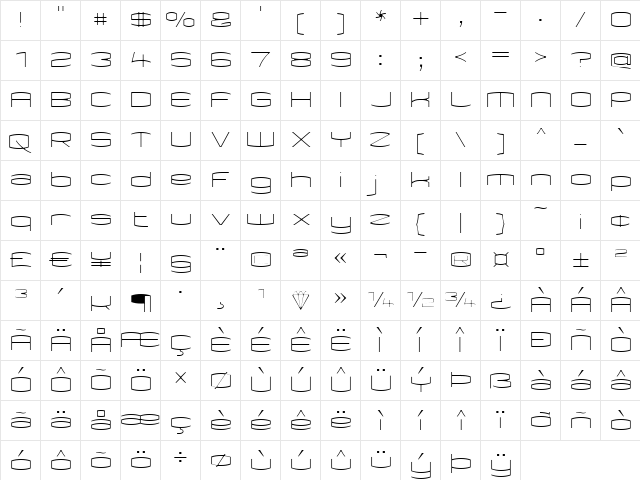
Kameleon Thin Regular
| Designer | Graham Meade |
Design Context for Kameleon Thin Typeface
Kameleon Thin is a composed and adaptable typeface that performs quietly and consistently across a wide range of design contexts. The delicate stroke weight brings airiness and refinement to layouts.